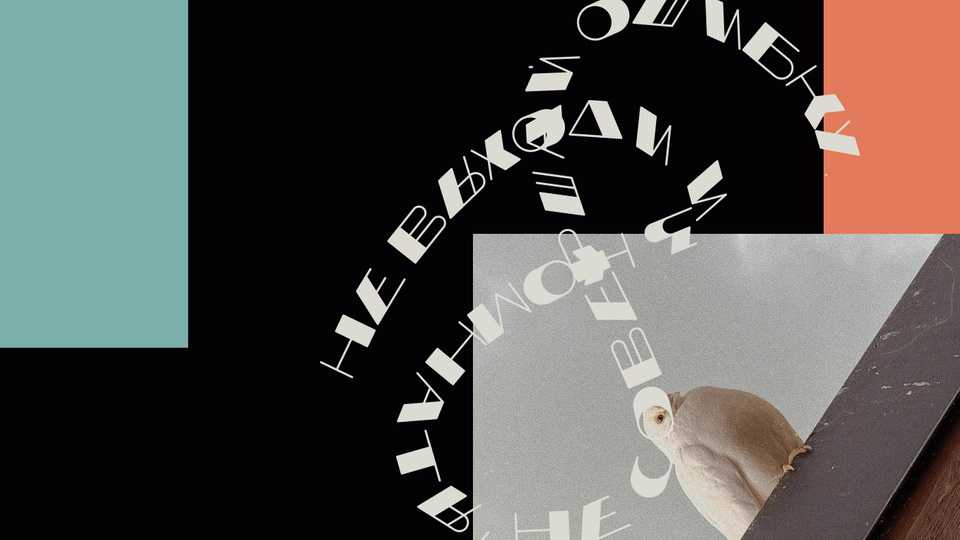
Download Usually font, a unique display typeface with Regular and Bold variations. Latin and Cyrillic included. Usually is good to posters, covers, apparel and etc.
Designer: Alexey Atapin